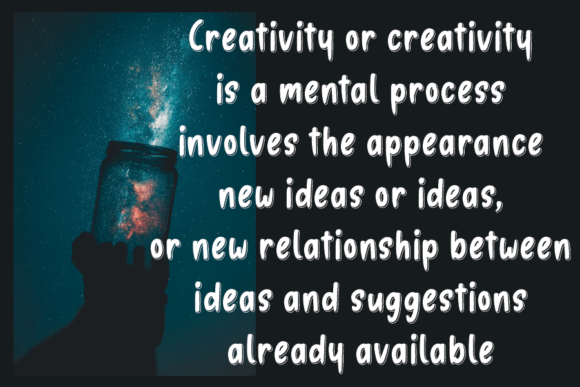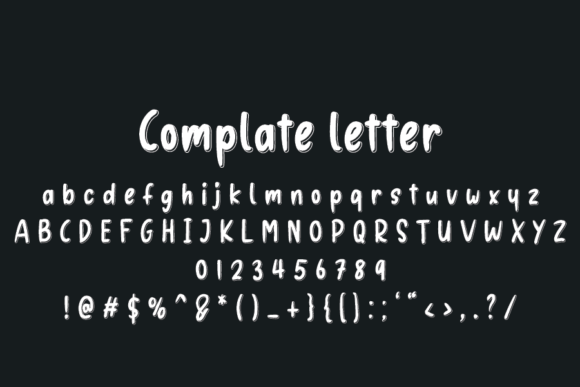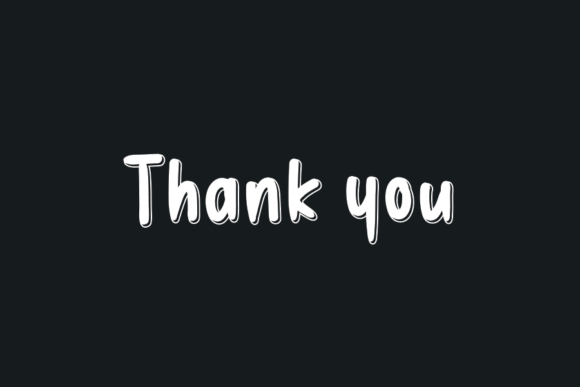
Education Font: A Sweet and Friendly Handwritten Font for Your Designs
Are you looking for a font that can add a personal touch to your designs? Look no further than Education Font, a beautiful handwritten font created with the help of a brush pen. Its natural and unique style makes it incredibly fitting for a wide range of designs, from educational materials to craft projects.
What is Education Font?
Education Font is a sweet and friendly handwritten font that is perfect for designers and crafters who want to add a personal touch to their work. The font was created with the help of a beautiful brush pen, which gives it a natural and unique style. The font is highly legible and versatile, making it suitable for a variety of design projects.
Characteristics of Education Font
Education Font has several characteristics that make it stand out from other fonts. Some of its key features include:
- Handwritten style: Education Font has a beautiful handwritten style that is perfect for designs that require a personal touch.
- Natural and unique: The font’s natural and unique style makes it incredibly fitting for a wide range of designs.
- Highly legible: Education Font is highly legible, making it perfect for designs that require clear and easy-to-read text.
- Versatile: The font is versatile and can be used for a variety of design projects, from educational materials to craft projects.
Uses of Education Font
Education Font is a versatile font that can be used for a wide range of design projects. Some of the uses of Education Font include:
- Educational materials: Education Font is perfect for educational materials such as textbooks, workbooks, and worksheets.
- Craft projects: The font is great for craft projects such as scrapbooking, card making, and journaling.
- Signage: Education Font can be used for signage such as posters, flyers, and brochures.
- Digital designs: The font can be used for digital designs such as social media graphics, blog posts, and website content.
Benefits of Using Education Font
There are several benefits to using Education Font in your designs. Some of the benefits include:
- Adds a personal touch: Education Font adds a personal touch to your designs, making them more engaging and relatable.
- Increases legibility: The font’s highly legible style makes it easy for readers to understand your text.
- Versatile: Education Font is versatile and can be used for a wide range of design projects.
- Unique style: The font’s unique style makes it stand out from other fonts and adds a touch of elegance to your designs.
Tips for Using Education Font
Here are some tips for using Education Font in your designs:
- Use it for headings and titles: Education Font is perfect for headings and titles, as it adds a personal touch and makes your text stand out.
- Mix it with other fonts: You can mix Education Font with other fonts to create a unique and visually appealing design.
- Use it for body text: Education Font is highly legible, making it suitable for body text.
- Experiment with different colors: You can experiment with different colors to find the perfect combination for your design.
Education Font is a beautiful handwritten font that is perfect for designers and crafters who want to add a personal touch to their work. Its natural and unique style makes it incredibly fitting for a wide range of designs, from educational materials to craft projects. With its highly legible style and versatility, Education Font is a great addition to any design project.